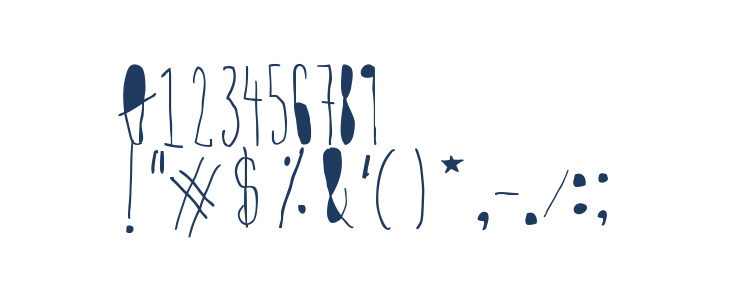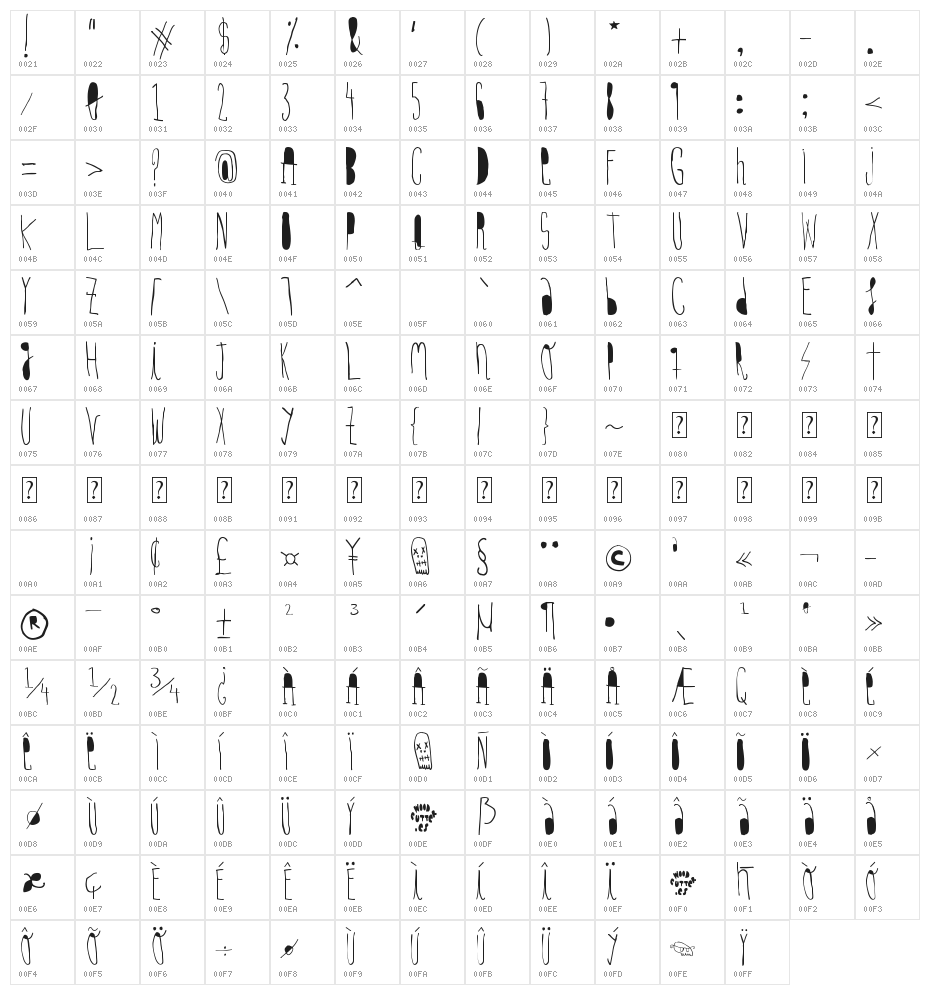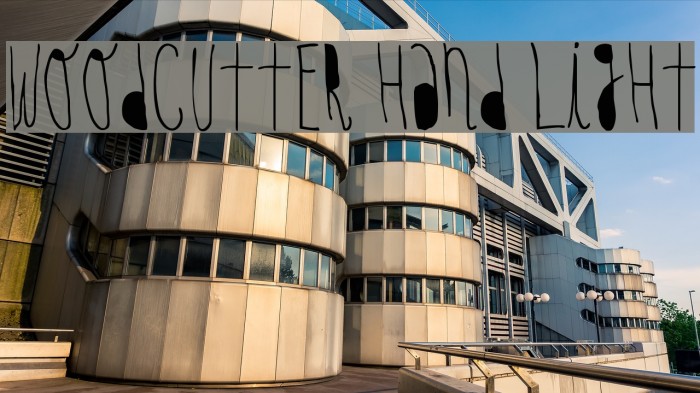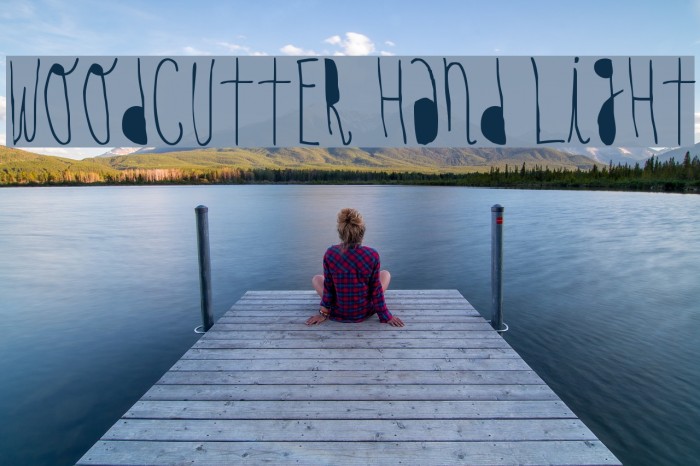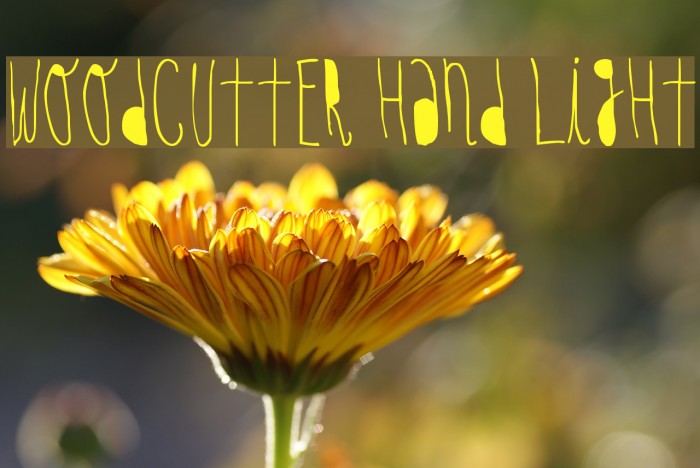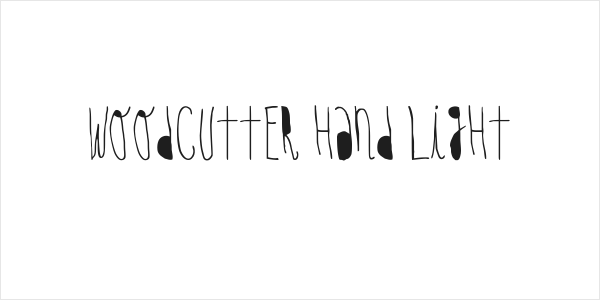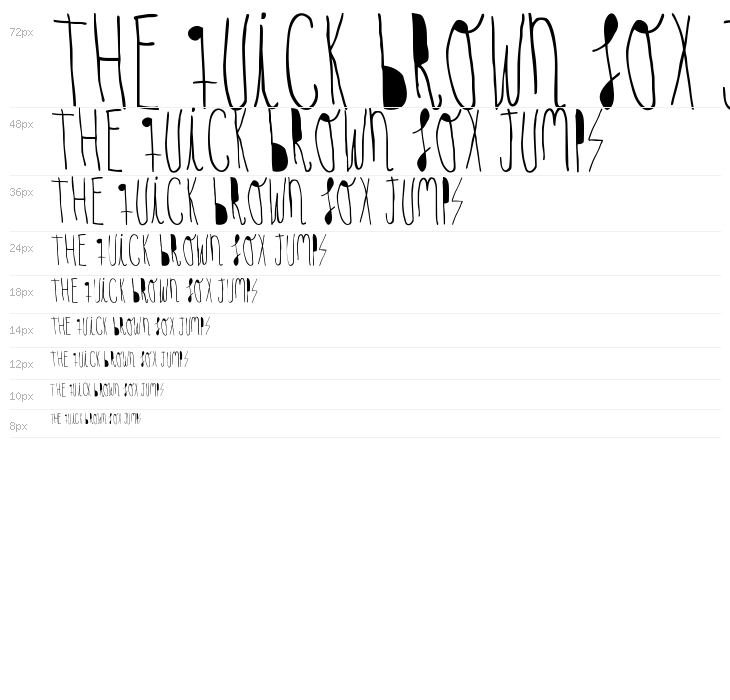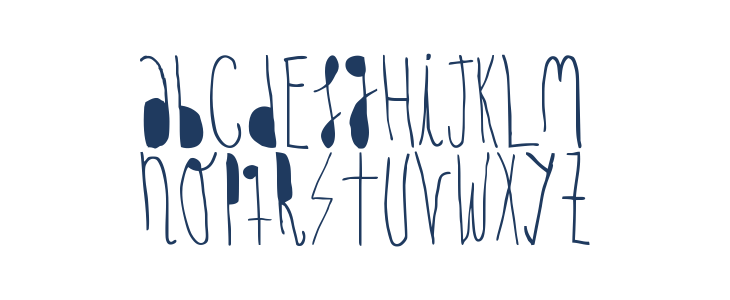
woodcutter hand light Font
woodcutter hand light Description
This font features a unique, hand-drawn style with an organic and whimsical appearance. The letters are tall and slender, with uneven strokes that give it a playful and artistic feel. The uppercase and lowercase letters maintain a consistent height, while the numbers and special characters follow the same quirky design. The irregularity in the stroke thickness adds to its charm, making it ideal for creative projects. Its distinctive look is reminiscent of hand-crafted signage or artistic doodles, offering a personal touch to any design.
| Proposed Projects | Ideal for artistic projects, children's books, creative posters, and handmade crafts. |